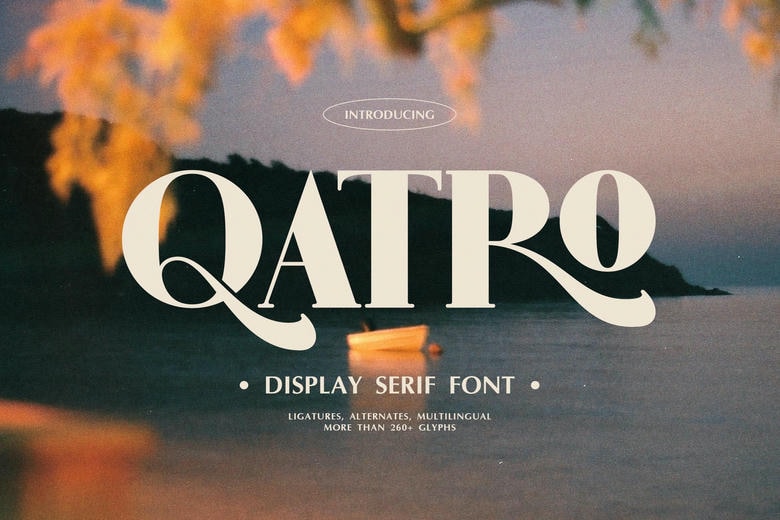
Qatro Font
Qatro is a bold and artistic display serif font that combines classic elegance with high-contrast curves and dramatic flair. Ideal for editorial design, logo branding, luxury packaging, and standout headlines, Qatro includes alternates, ligatures, and over 260 glyphs to enhance visual richness. Its refined style adds a premium touch to any design project.
Qatro Serif Font